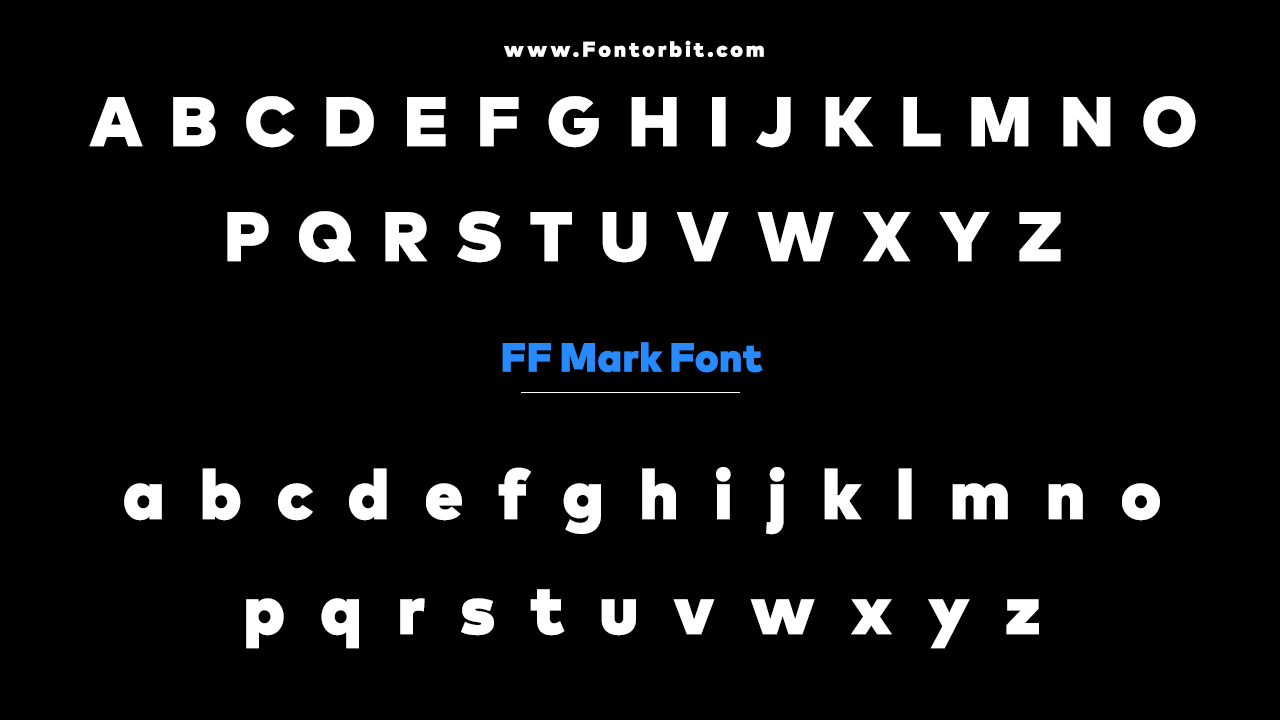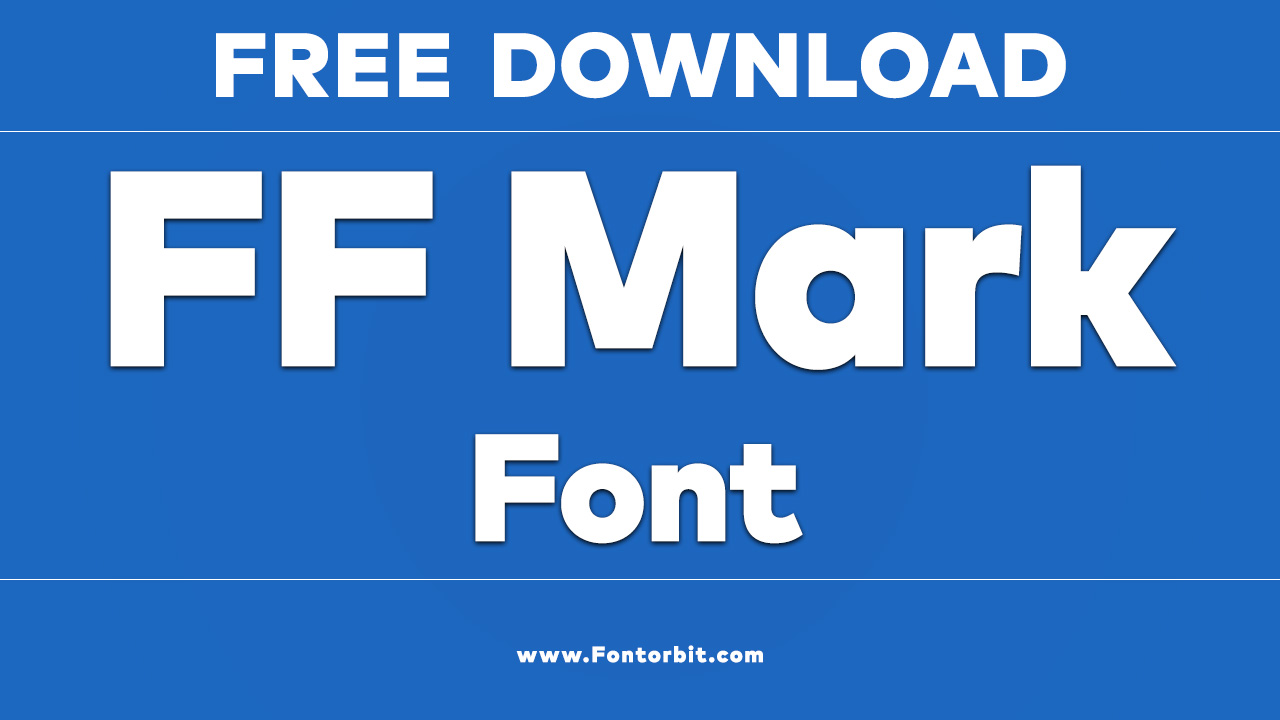
FF Mark is a contemporary geometric sans serif typeface designed by German-type designers Hannes von Döhren and Christoph Koeberlin, with assistance from Erik Spiekermann.
Released in 2013 by FontFont Foundry, FF Mark offers a wide variety of 183 styles, including 10 distinct weights like Regular, Thin, Hairline, Bold, and Italic. This typeface is crafted to provide modern typographic versatility with stylistic alternates, ligatures, and advanced figure sets, making it suitable for both digital and print projects.
FF Mark Font Family Includes:
The FF Mark Font Family offers an extensive range of typefaces, perfect for various design needs. With its clean, modern aesthetic and large X-height, it ensures superior legibility even at small sizes.
- FF Mark Regular
- FF Mark Thin
- FF Mark Hairline
- FF Mark ExtraLight
- FF Mark Light
- FF Mark Book
- FF Mark Medium
- FF Mark SemiBold
- FF Mark Bold
- FF Mark Italic
Notable Uses Of FF Mark Font
FF Mark Font is renowned for its versatility and is commonly used in:
- Advertising
- Editorial and Publishing
- Corporate Design
- Video Games & App Design
FF Mark’s clean and geometric design makes it ideal for:
- Website design
- Branding and logo creation
- Editorial layouts
- Corporate presentations
- Product packaging
- Social media and marketing campaigns
- Display screens and digital interfaces
FF Mark is an exceptional font that combines geometric precision with contemporary style. Its extensive range of styles and exceptional legibility make it a versatile choice for various design projects. Whether for personal or commercial use, FF Mark is a go-to font for designers looking for a clean and modern aesthetic. For commercial purposes, ensure you acquire the necessary licensing.
2.What Are The Key Features Of FF Mark Font?
Large X-height, geometric shapes, advanced figure sets, and alternative characters.
5.Does FF Mark Support Different Languages?
Yes, it supports a wide range of languages and scripts.
6.Where Is The FF Mark Most Commonly Used?
In advertising, branding, editorial, and web design.
7.What Makes FF Mark Unique?
Its modern geometric structure and high legibility are available across various text sizes.